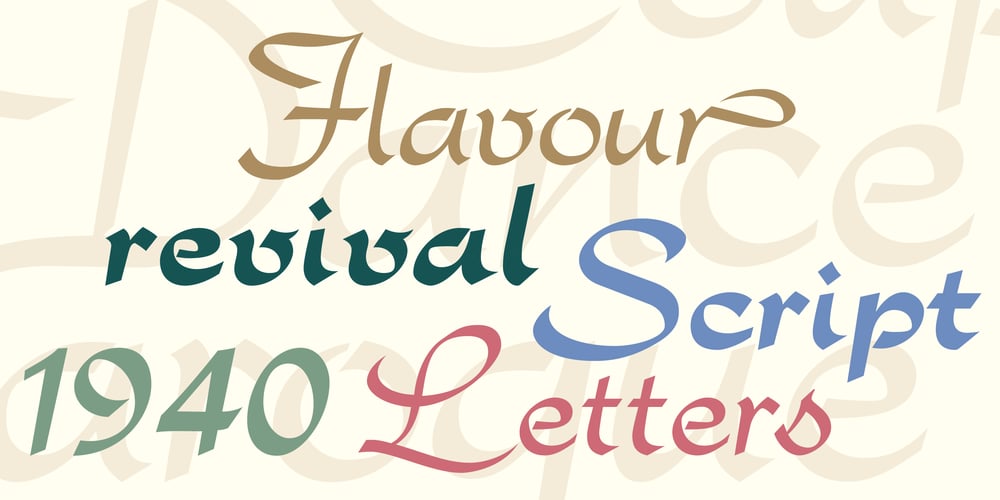
Minuet
Minuet font
Minuet Font Family was designed by Stefan Schlesinger, Dick Dooijes, Hans van Maanen and published by Canada Type. Minuet contains 2 styles and family package options. Minuet, an informal script with crossover deco elements giving it an unmistakable 1940s flavor, is a revival and expansion of the Rondo family, the last typeface drawn by Stefan Schlesinger before his death. This family was initially supposed to be a typeface based on the strong, flowing script Schlesinger liked to use in the ads he designed, particularly the ones he did for Van Houten’s cocoa products. But for technical reasons the Lettergieterij Amsterdam mandated the face to be made from unattached letters, rather than the original connected script. Schlesinger and Dooijes finished the lowercase and the first drawings of the uppercase just before Schlesinger was sent to a prison camp in 1942. Dooijes completed the design on his own, and drew the bold according to Schlesigner’s instructions. The typeface family was finished in February of 1944, and Schlesinger was killed in October of that same year. Though he did see and approve the final proofs, he never actually saw his letters in use. It took almost four more years for the Lettergieterij Amsterdam to produce the fonts. The typeface was officially announced in November of 1948, and immediately became a bestseller. By 1966, according to a memo from the foundry, the typeface had become “almost too popular”. This digital version of Schlesigner’s and Dooijes’s work greatly expands on the metal fonts. Both weights include a complete set of lowercase alternates — based on Schlesinger’s own drawings, as well as alternative variations for some of the capitals, a few ligatures, and extended language support covering Western, Eastern and Central European languages, plus Baltic, Celtic/Welsh, Esperanto, Maltese and Turkish. Minuet is available in all popular formats. The OpenType version, Minuet Pro, takes advantage of internal font programming to combine the main and alternate fonts into a single file per weight, making all alternates and ligatures automatically available at the push of a button in OpenType supporting programs.